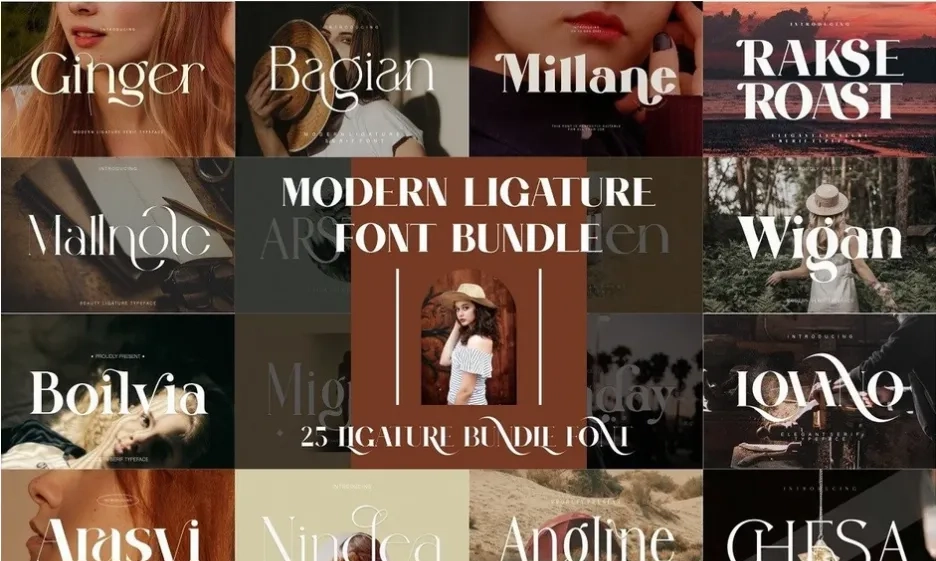
Modern Ligature Font Bundle
Elevate your design projects with the Modern Ligature Font Bundle. This collection features a variety of unique ligature fonts that seamlessly integrate into both digital and print media. Each font is crafted to enhance readability and aesthetic appeal, making it perfect for branding, logos, web design, and user interfaces.
• Multiple font styles and weights
• Stylish ligatures for a modern touch
• Ligatures included for a cohesive look
• Easy to customize
• Ideal for branding projects and logo designs
• Great for creating eye-catching web typography
• Utilize ligatures to enhance the flow of your text